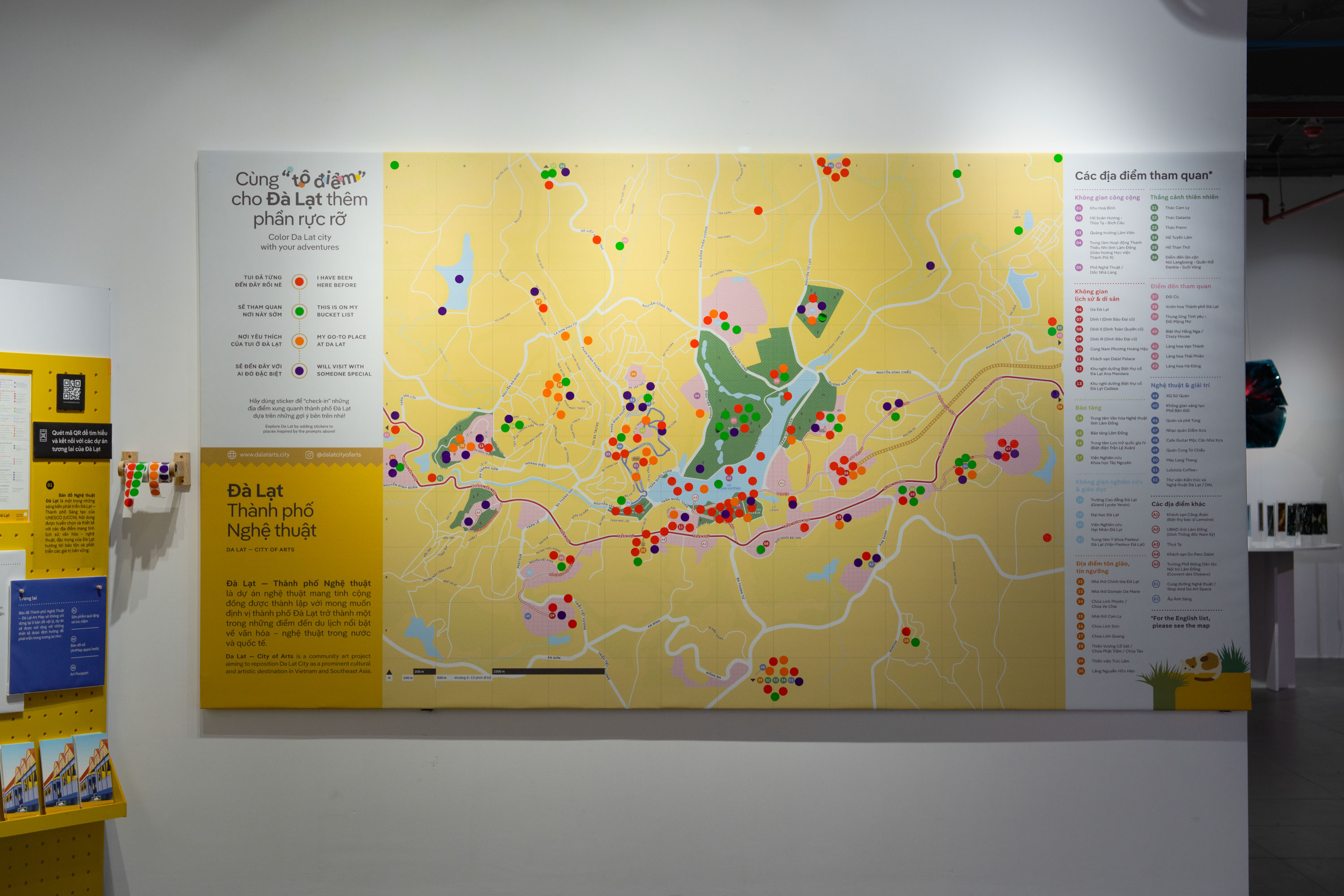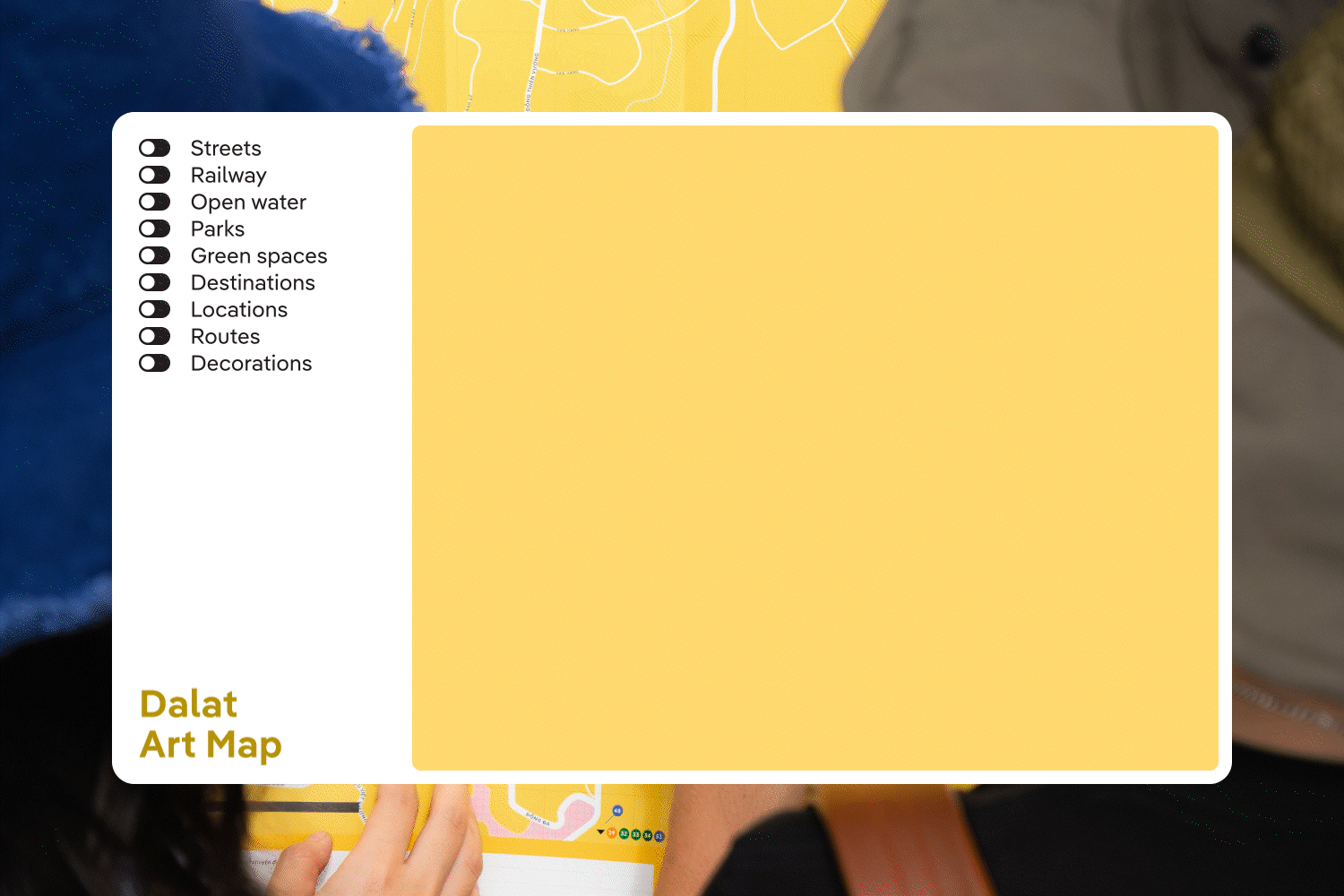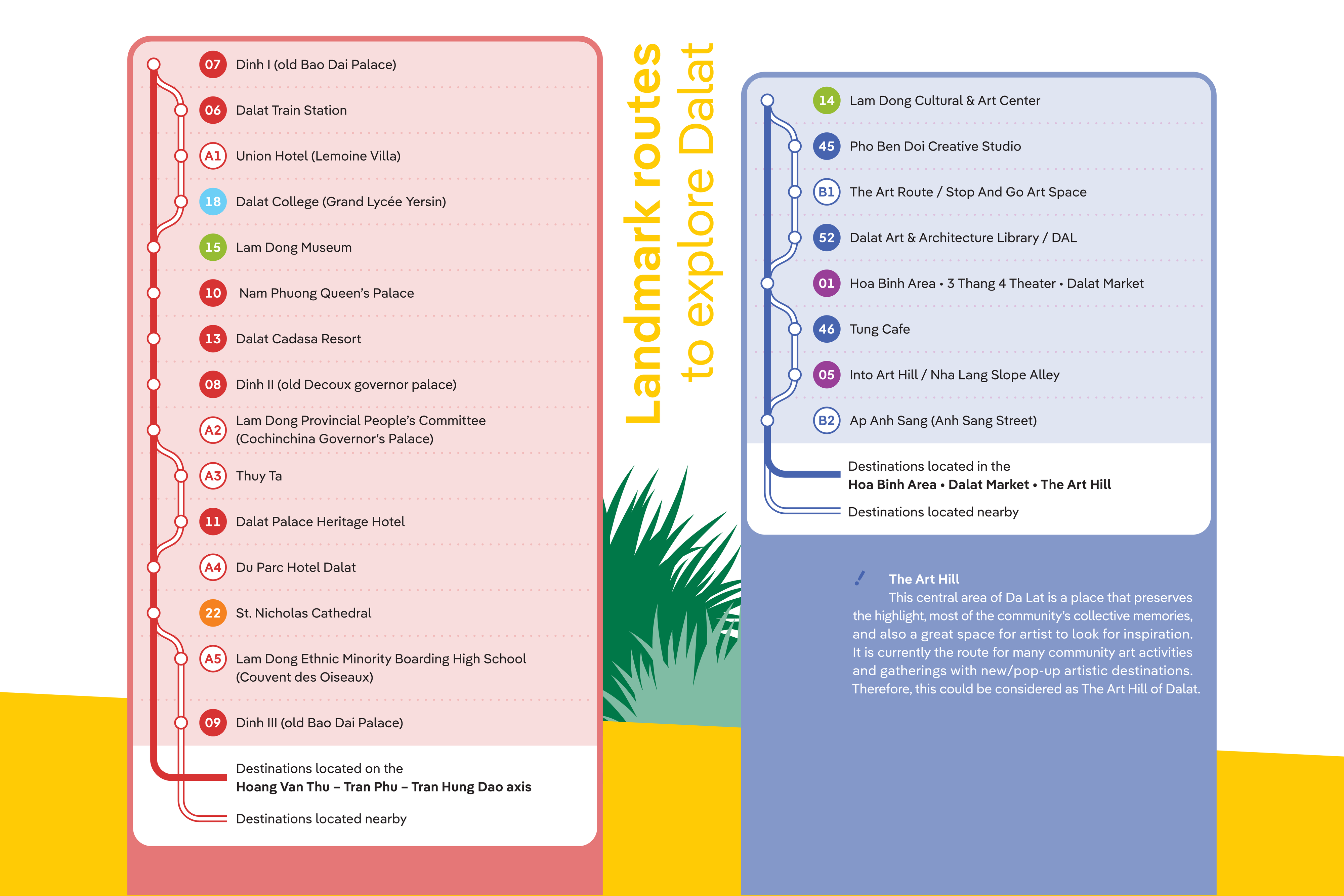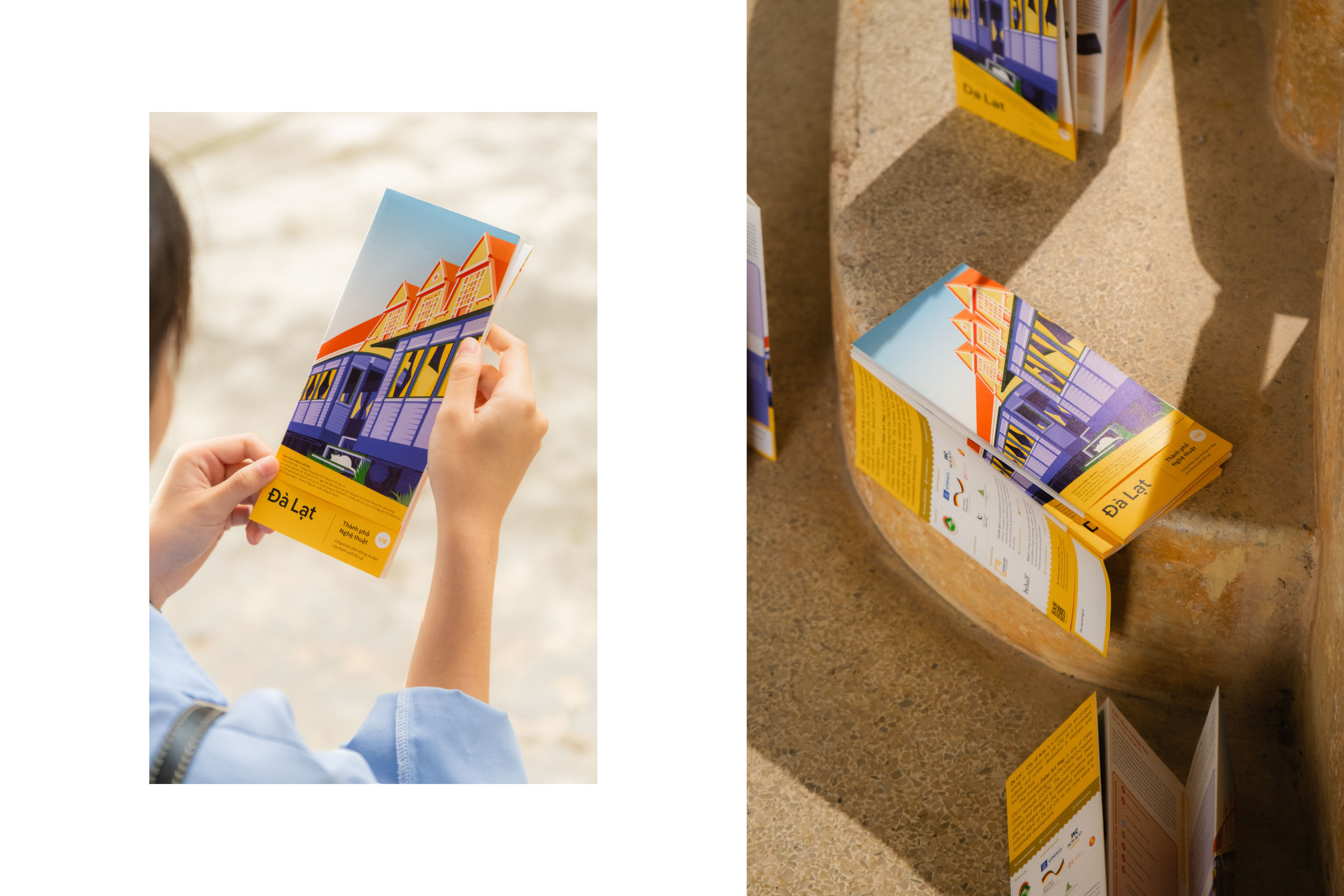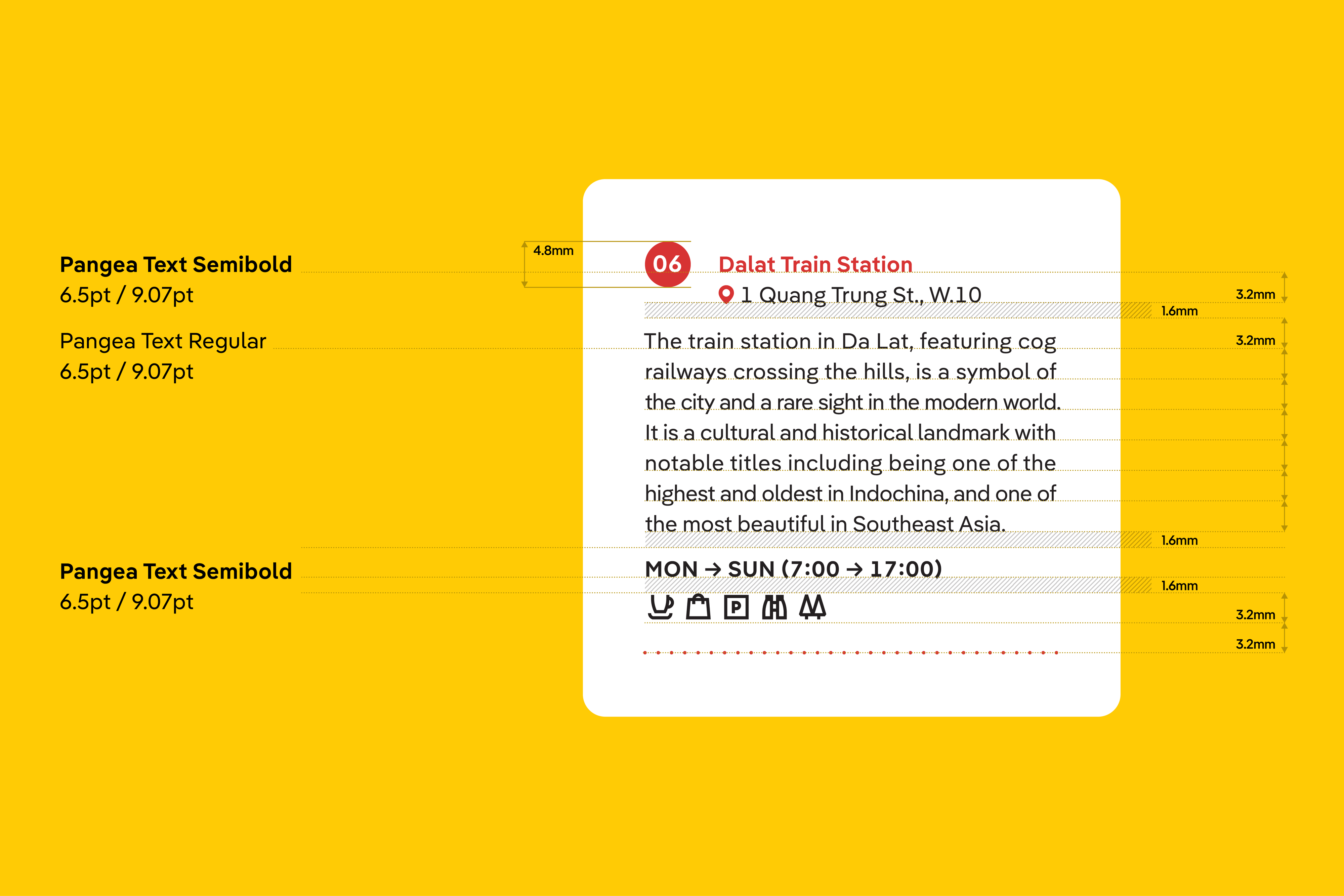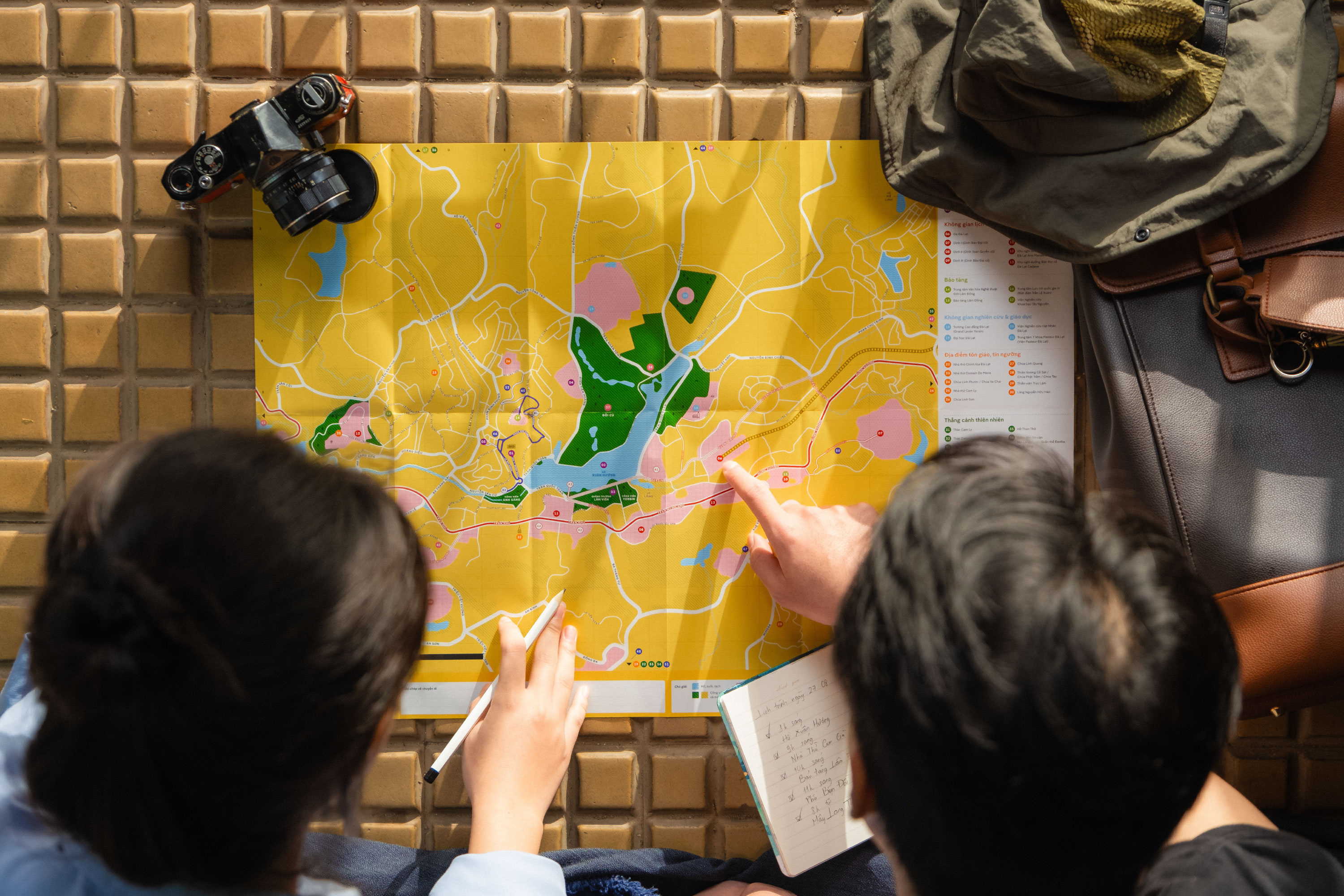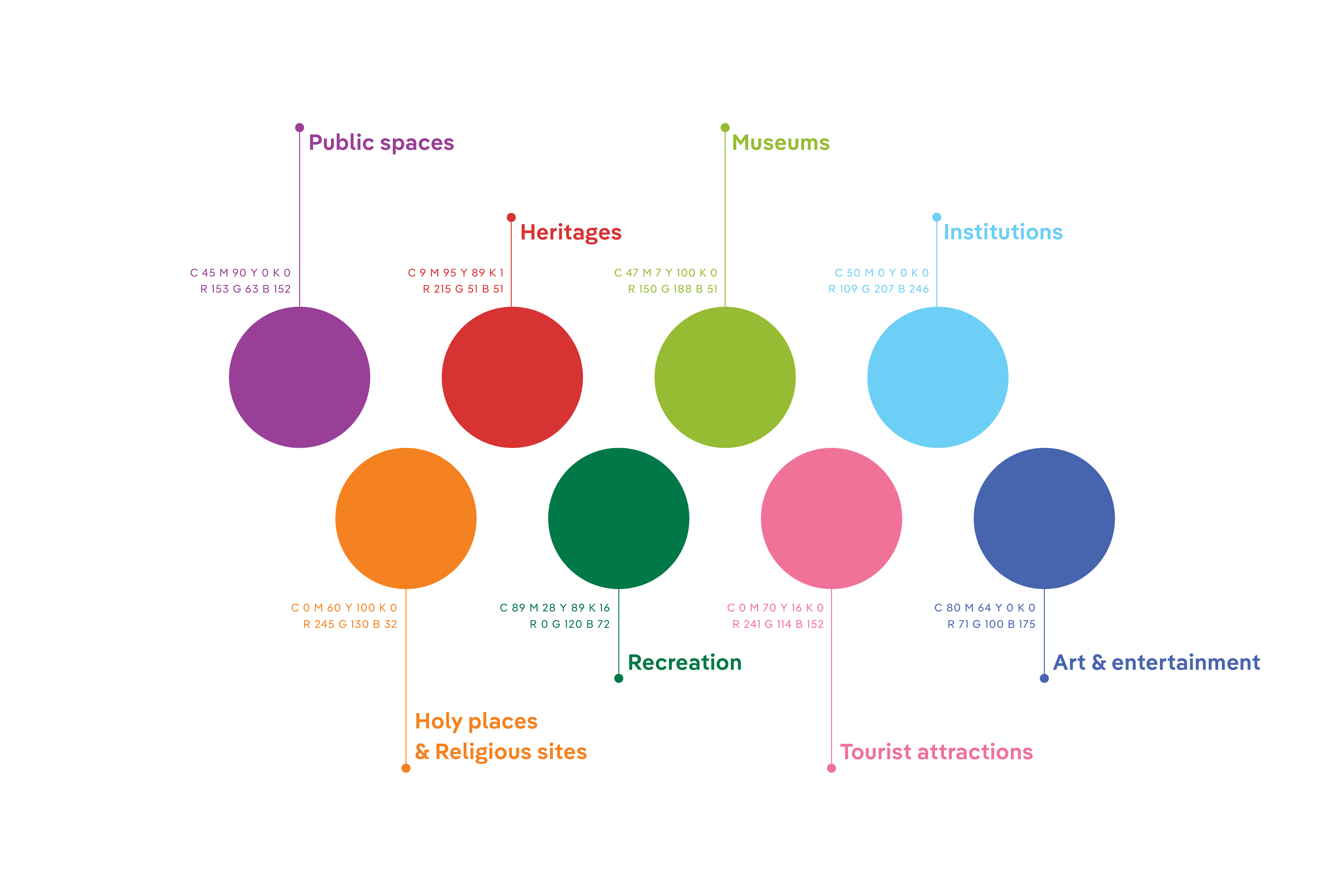
Đà Lạt
Pangea: the art festival wayfinder
Fonts in use: The typeface Pangea Text for the project City of Arts, the Vietnamese city of Đà Lạt
With the project City of Arts, the Vietnamese city of Đà Lạt – also called the “City of Artists” – transforms its cultural heritage into a visual experience. The branding was developed by Behalf Studio in Hanoi, which is known for its conceptually strong, typography-driven design.
or the art festival’s signage system, the team, led by Creative Director Giang Nguyen, was looking for a typeface family that was both functional and sensitive and they found just what they needed at Fontwerk. As Giang Nguyen remembers, Pangea Text was chosen very early on: “We wanted an aesthetic that was inspired by signage systems and their functionality: clear, minimalist, but not too technical. Pangea combines all these requirements with its friendly, humanistic tone.”
Typographically, the project was quite demanding, with multi-column layouts and lots of short text passages in small font sizes.
We had to play with spacing, sometimes even compressing words slightly – but Pangea managed all of this, its resilience is impressive.
A crucial factor was also the excellent support for the Vietnamese language. Pangea offers full diacritical features that work in both tight line spacing and complex layouts. These features are thanks to the input from Donny Truong, one of the leading experts in Vietnamese type design, with whom Fontwerk works. Truong stands for a philosophy in which linguistic aesthetics and technical precision work together equally. His characteristic script and idiosyncratic touch is clearly noticeable in Pangea’s Vietnamese character set.
For Fontwerk, the appearance of Pangea in Vietnam is an example of how global type design can have a local impact. “We are delighted that our fonts not only work, but are also loved and used in Asia,” says Ivo Gabrowitsch, founder and Managing Director of Fontwerk. It confirms his philosophy of internationalization on an equal footing.
Fonts in use: The typeface Pangea Text for the project City of Arts, the Vietnamese city of Đà Lạt
The typography of the City of Arts wayfinding guide was carefully and precisely worked out by Behalf Studio.
Fonts in use: The typeface Pangea Text for the project City of Arts, the Vietnamese city of Đà Lạt
The color system is rational and accessibility-friendly.
Fonts in use: The typeface Pangea Text for the project City of Arts, the Vietnamese city of Đà Lạt
The project was officially launched in 2024, at historic Đà Lạt Railway Station, with the attendance of representatives from the Đà Lạt People’s Committee, various governmental departments, and the Head of UNESCO in Vietnam.
Fonts in use: The typeface Pangea Text for the project City of Arts, the Vietnamese city of Đà Lạt
There are few greater challenges for a typeface than maps and wayfinding. Pangea has mastered all the twists and turns.
Fonts in use: The typeface Pangea Text for the project City of Arts, the Vietnamese city of Đà Lạt
The folding map plays a central role at the City of Arts Festival in Đà Lạt, Vietnam: as a travel guide and souvenir.
Fonts in use: The typeface Pangea Text for the project City of Arts, the Vietnamese city of Đà Lạt
The project was also featured in the Vietnam Festival of Creativity & Design 2024, held in both Hanoi and Ho Chi Minh City. Presented as a community-driven participatory installation, it featured a large-scale version of the map where visitors could contribute their own memories of Đà Lạt.
Fonts in use: The typeface Pangea Text for the project City of Arts, the Vietnamese city of Đà Lạt